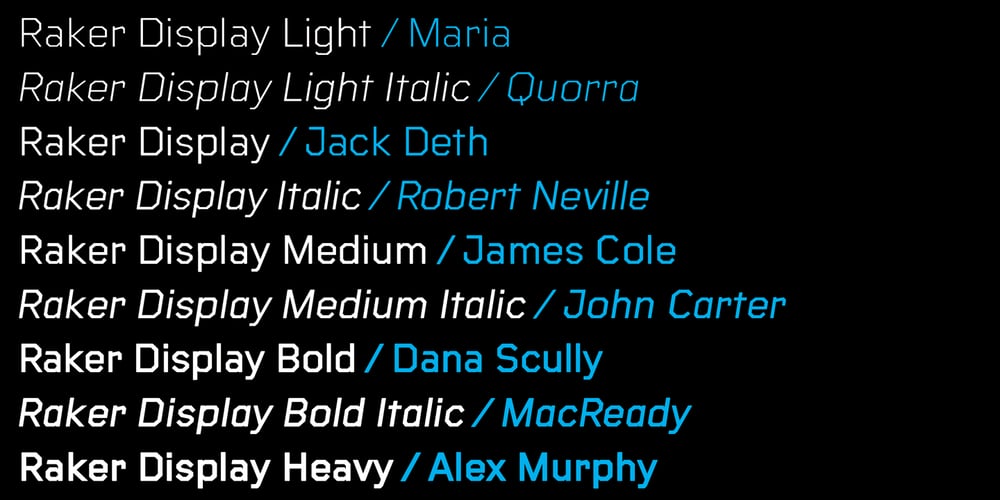
Raker
Raker font
Raker Font Family was designed by Ian Lynam and published by Wordshape. Raker contains 40 styles and family package options. Raker is a science fiction-inspired geometric sans serif text typeface family with a humanist influence and solid spacing/kerning. Regular, Display, stencil, and display stencils versions are included. Think NASA. Think the Space Race. Think Geometric. Think “works with text, too.” Detailed spacing, Western and Eastern European language support, and automated ligatures. Think hidden glyphs.